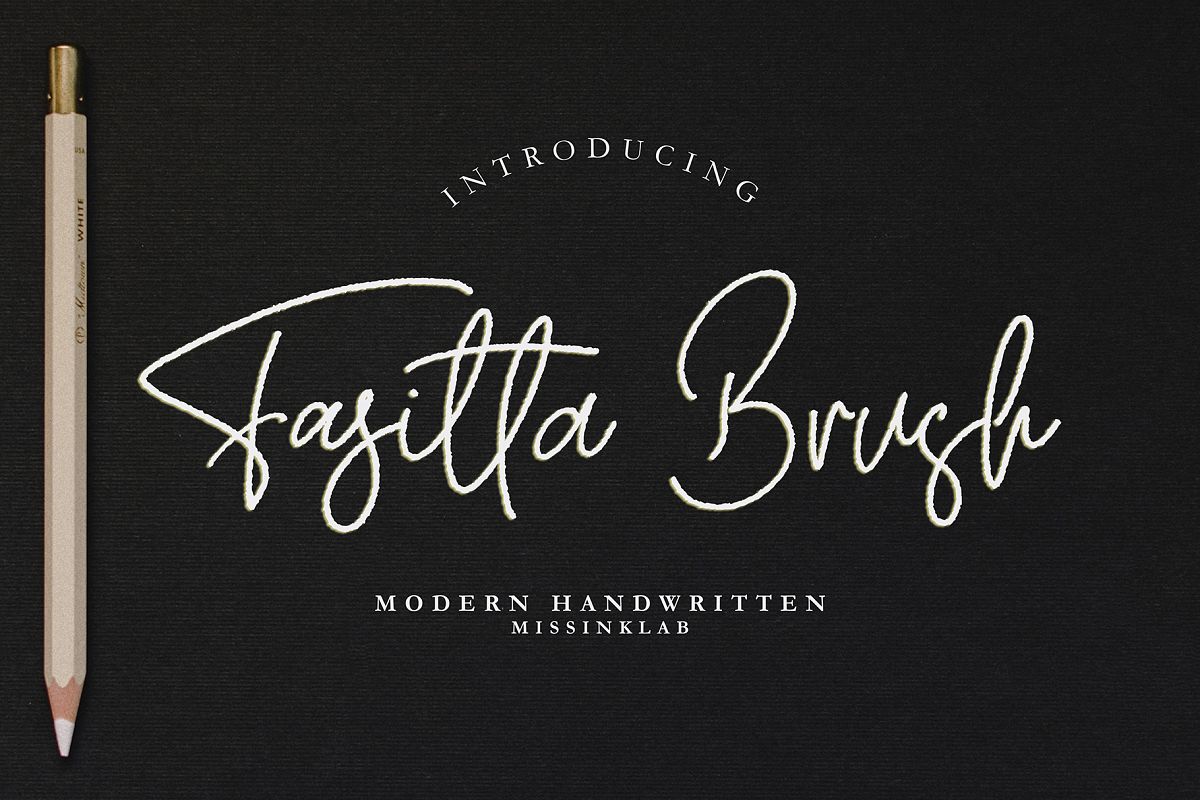
Fasitta
Fasitta font brush, this font will perfect for many different project ex: quotes, logo, blog header, poster, banding, fashion, apparel, letter, invitation, stationery, etc...